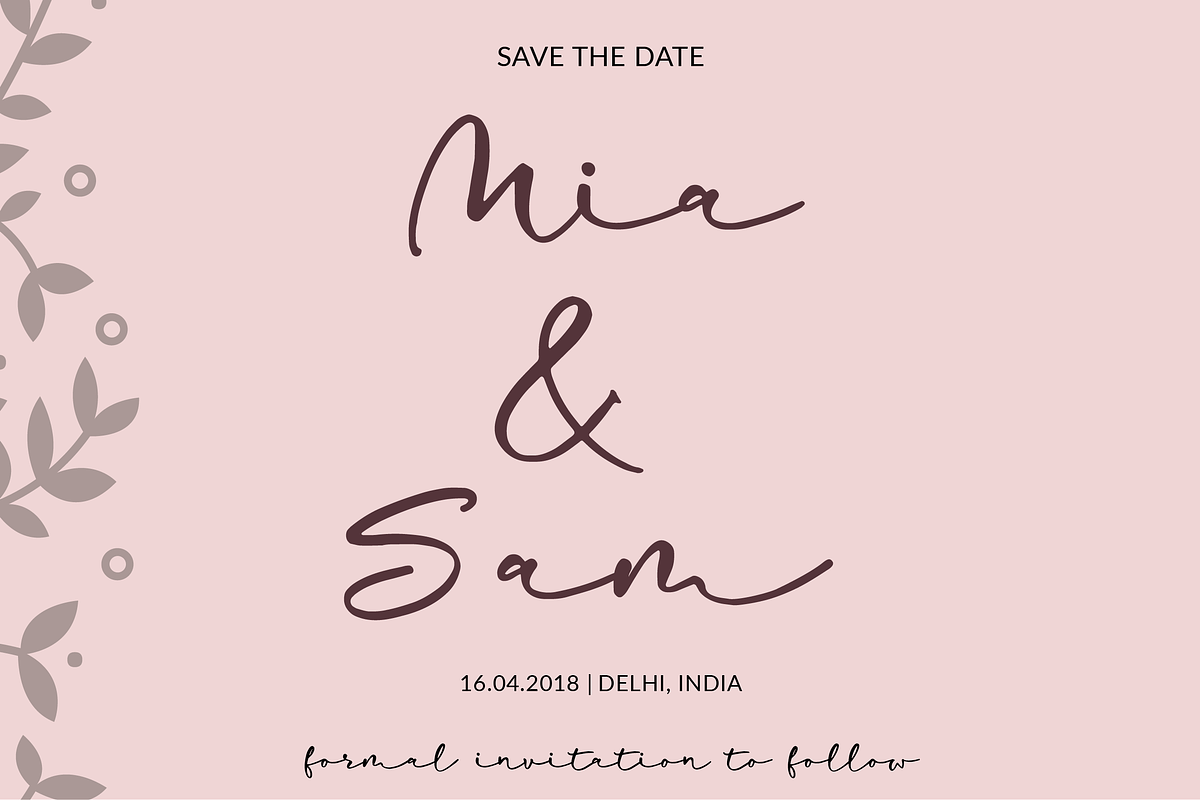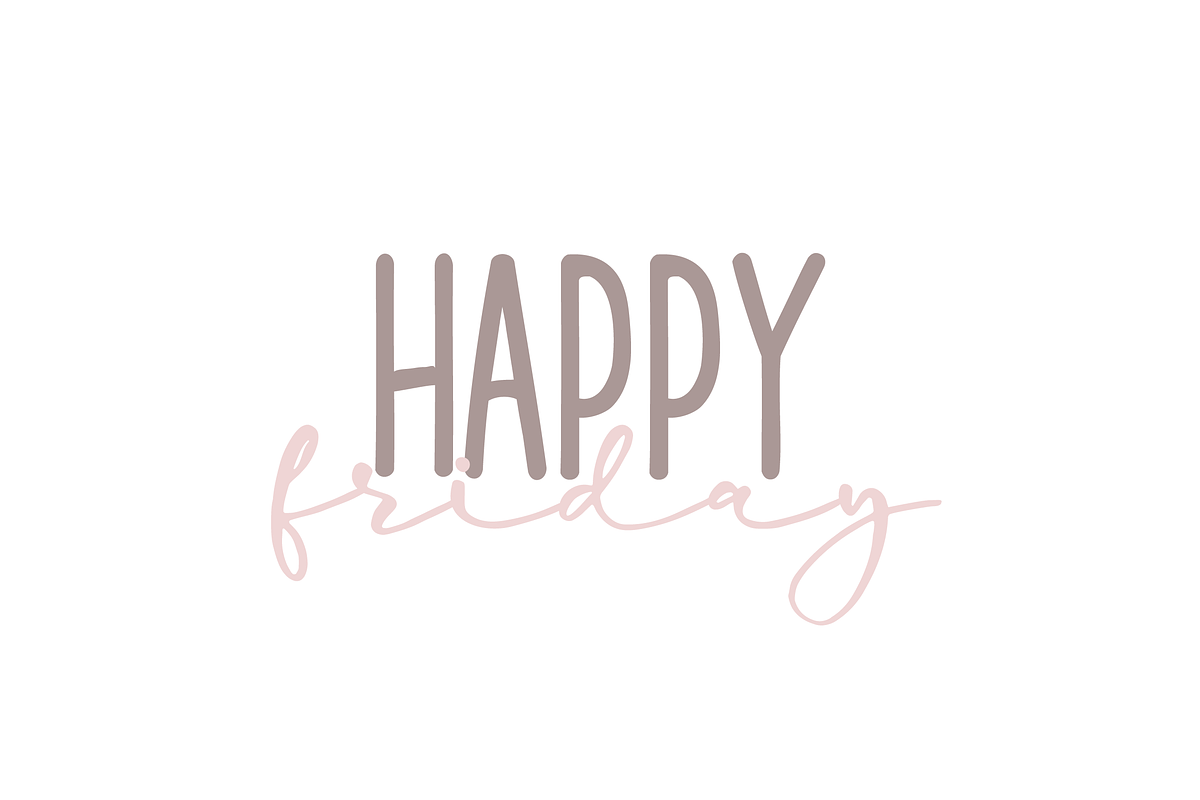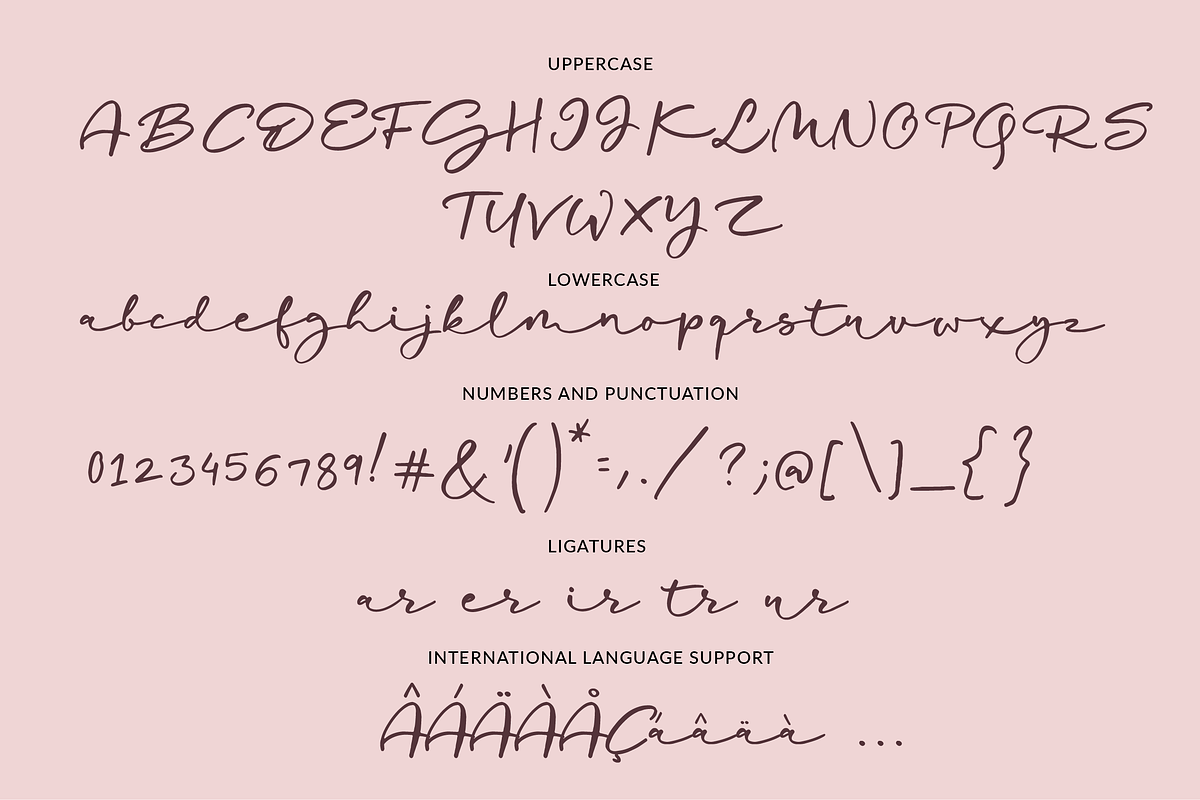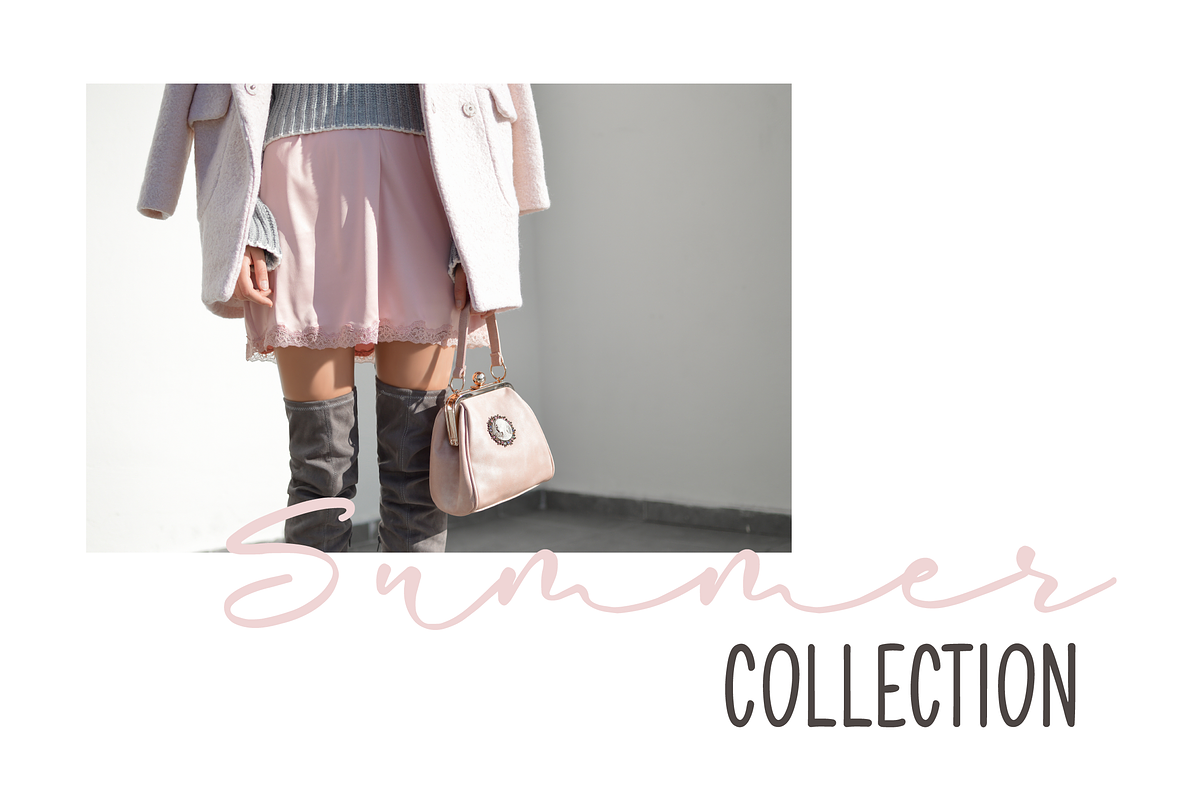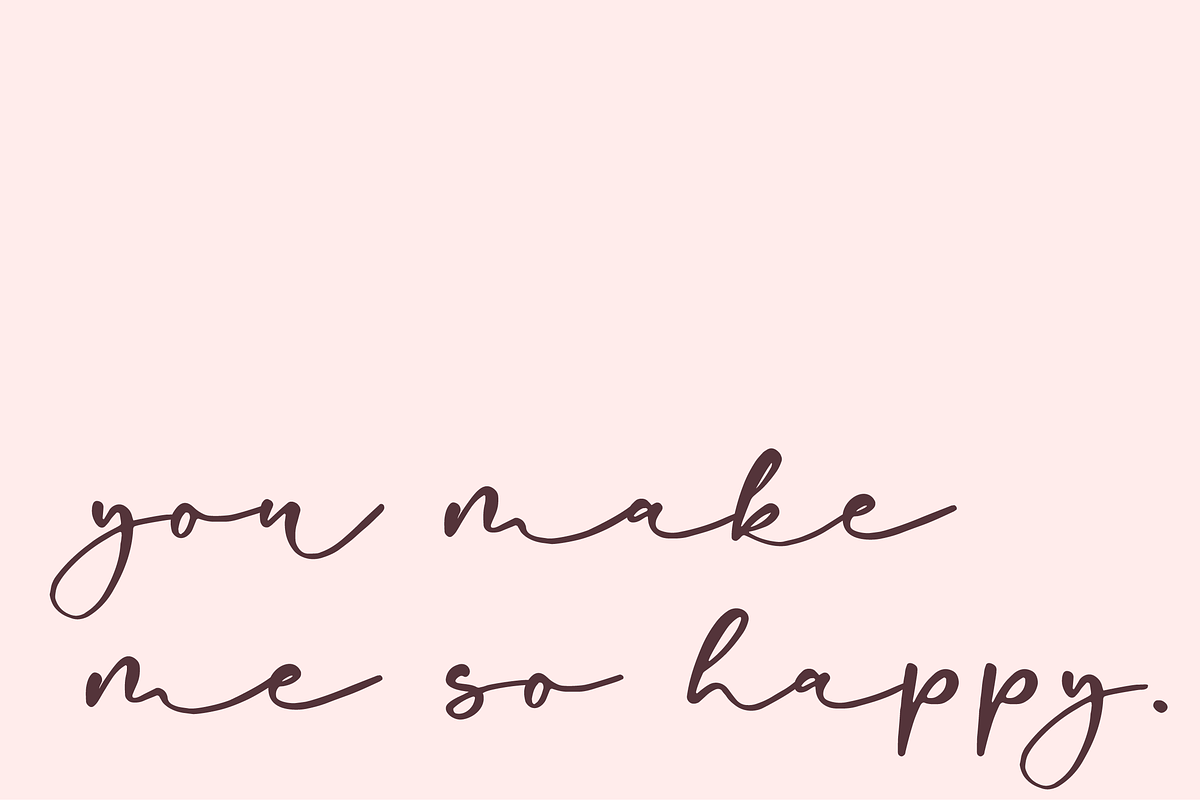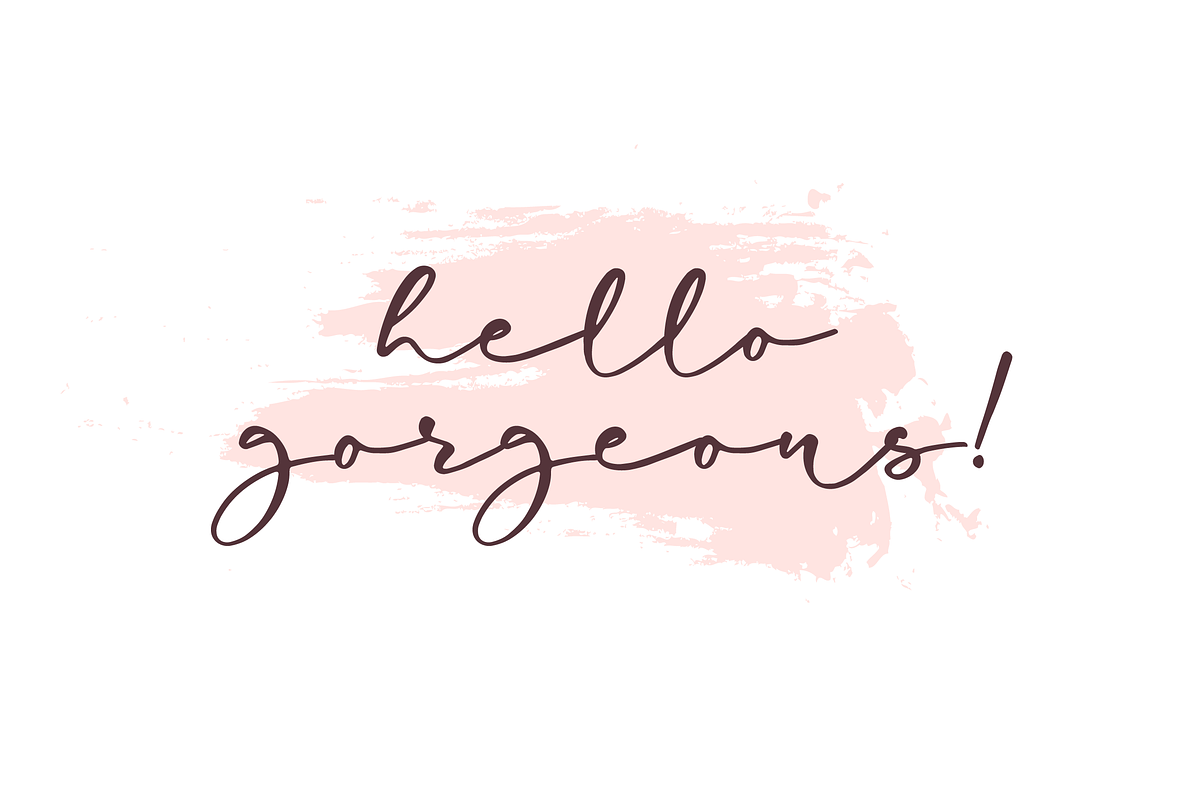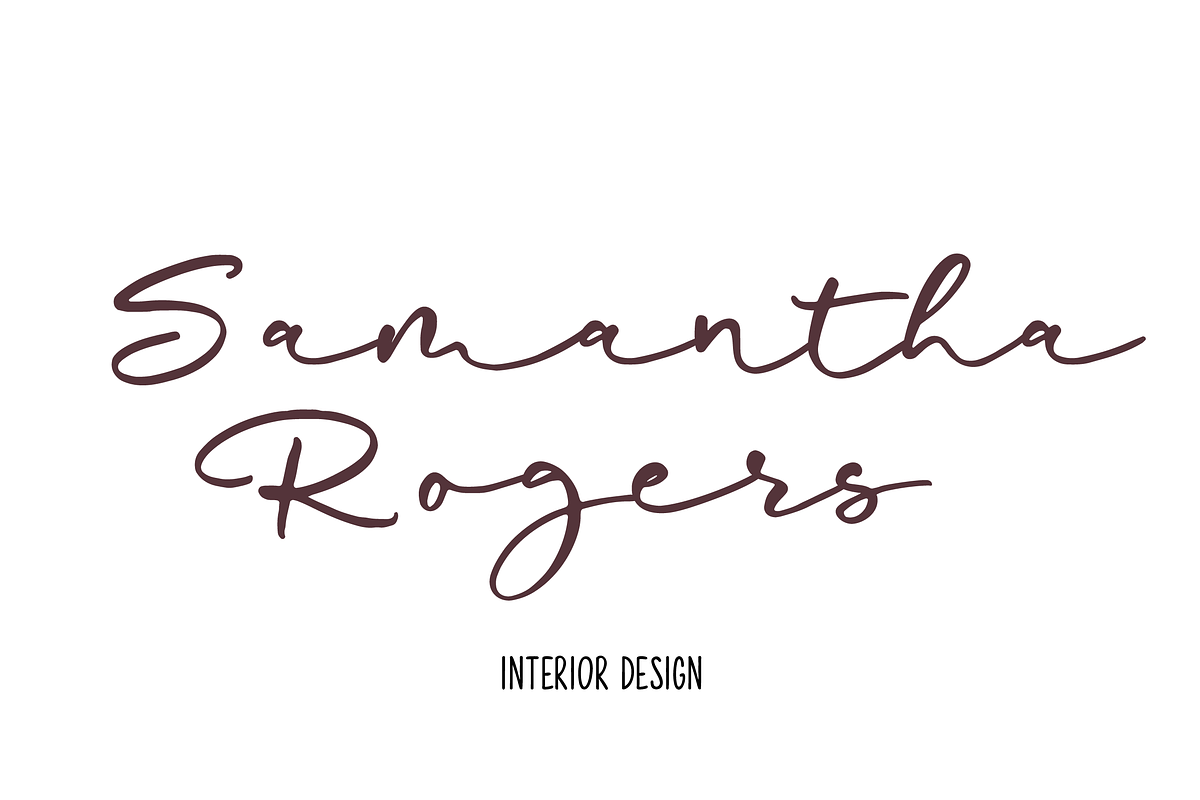
Mostly Sunshine Font Duo
Introducing Mostly Sunshine, a quirky casual handwritten font duo with a flowy script and a sans serif monoline font to go with it! The font duo is perfect for branding, logo, wedding invitations, greeting cards, fashion, and all so much more!
- Mostly Sunshine Regular
- Mostly Sunshine Mono